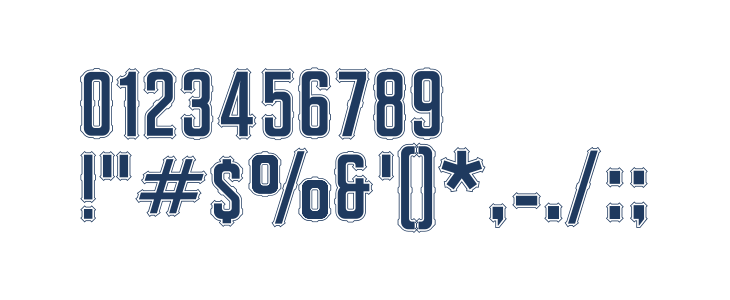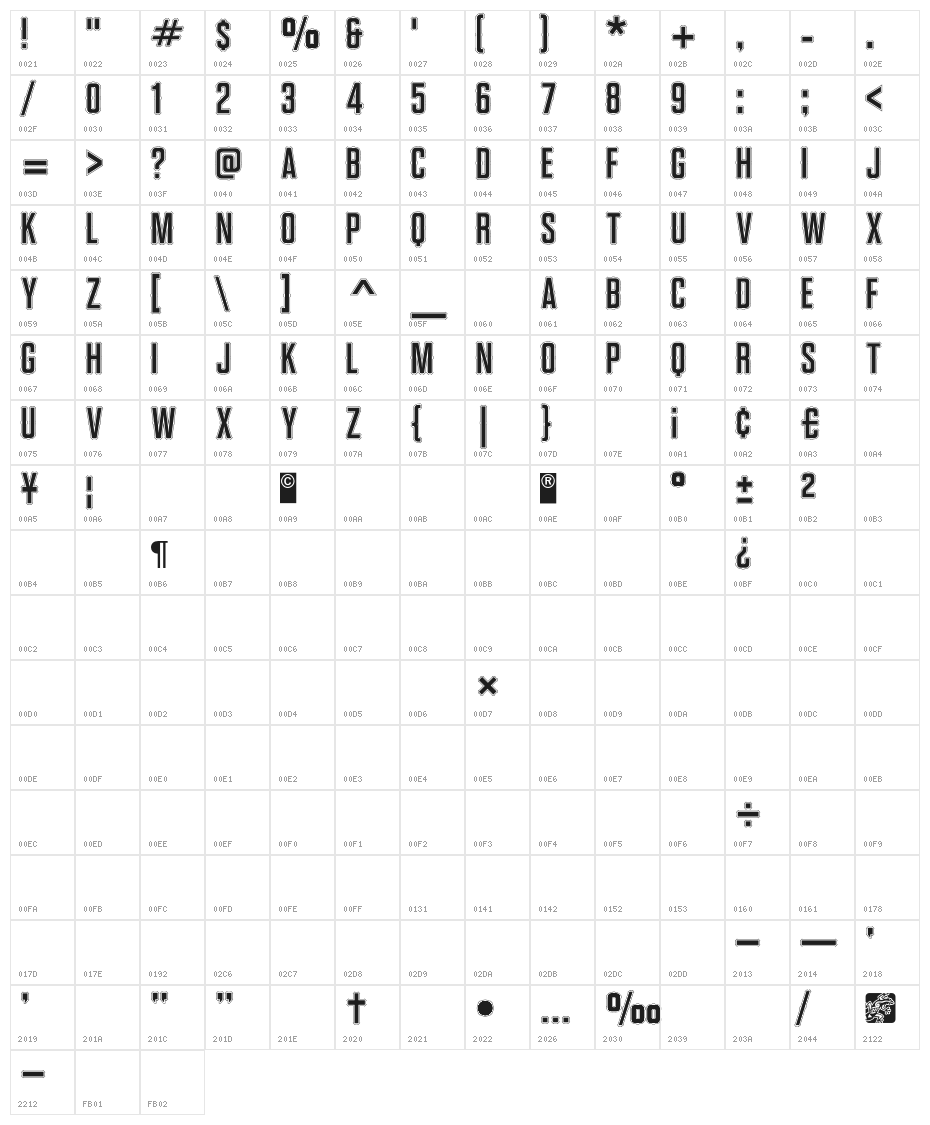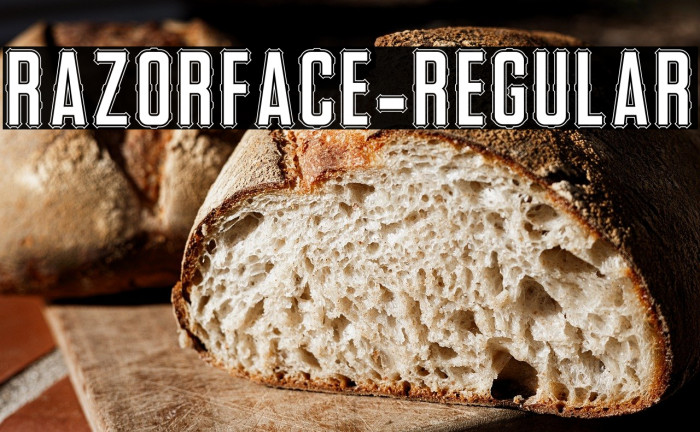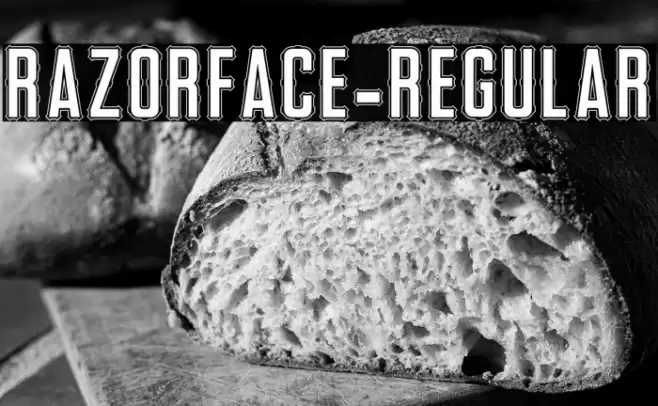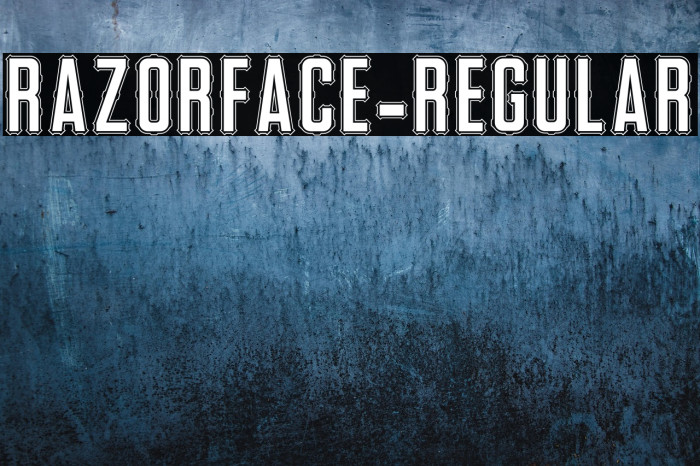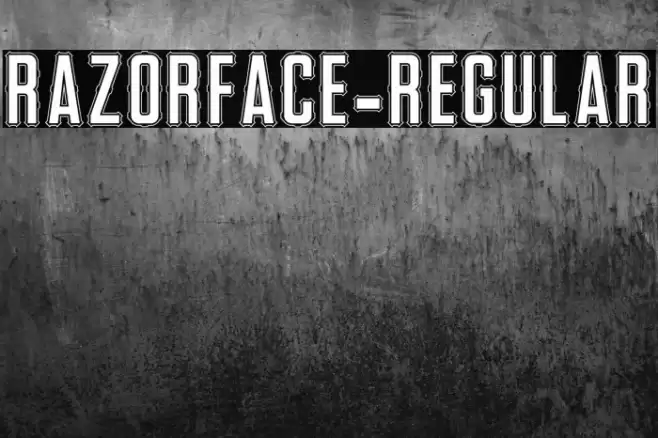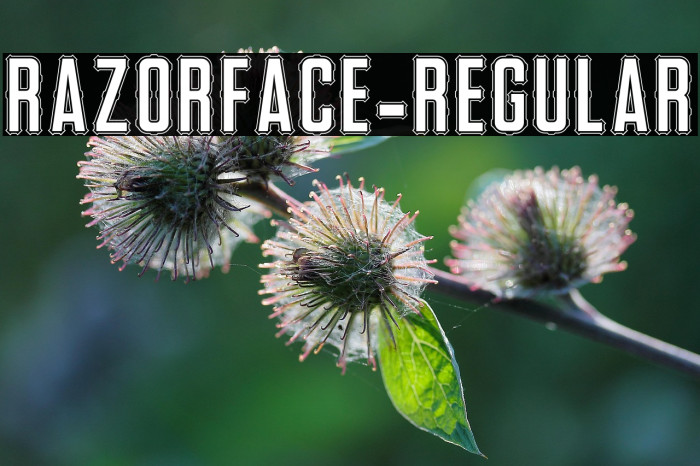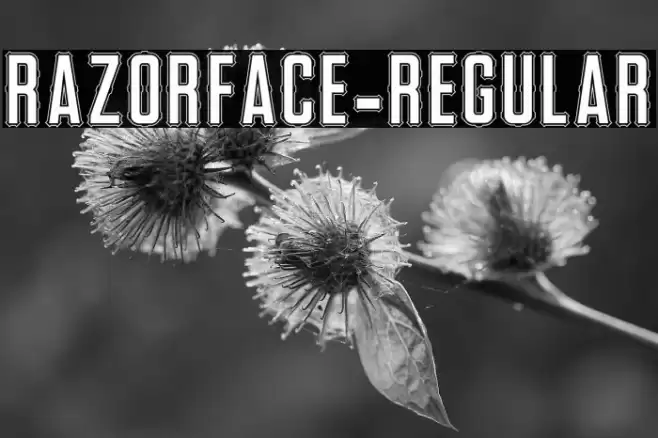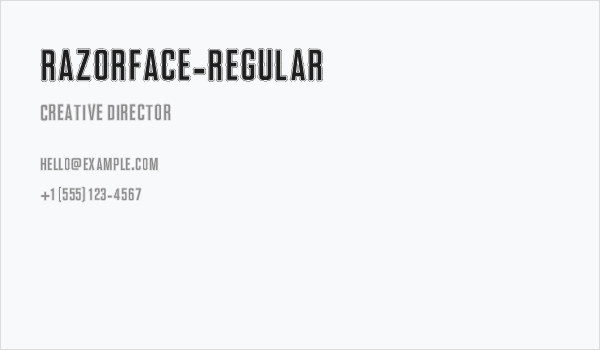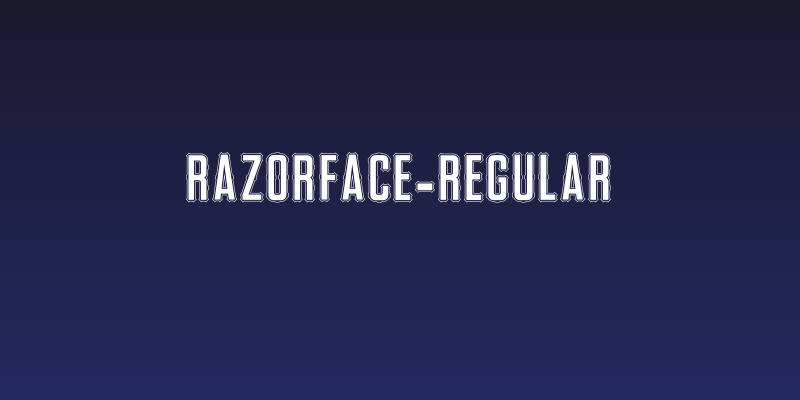
RazorFace-Regular Font
RazorFace-Regular Description
This font features a bold, decorative style with a strong presence. The characters are outlined with a sharp, angular design that gives them a distinct, edgy appearance. The uppercase letters are tall and commanding, while the lowercase letters maintain a consistent style. The numbers are equally bold, ensuring readability and impact. Special characters are designed to match the overall aesthetic, making this font suitable for attention-grabbing headlines and displays. The combination of thick strokes and sharp edges creates a high contrast that enhances its visual appeal.
Proposed ProjectsIdeal for posters, logos, branding, and any project requiring a strong, eye-catching typeface.